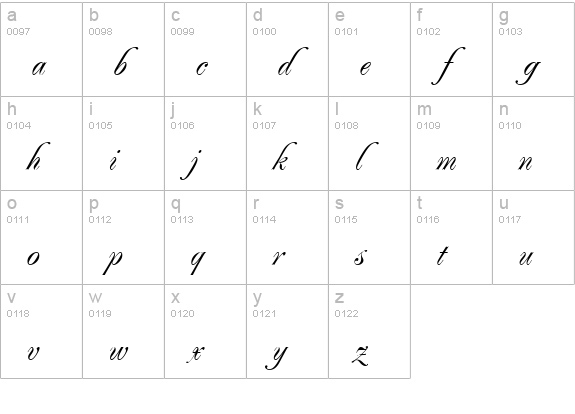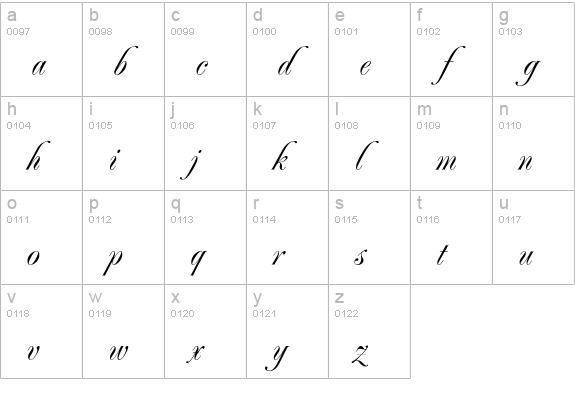
Poppl-Residenz Light Font Details
Poppl-Residenz Light is a refined, elegant variant in the Poppl typeface family \xE2\x80\x94 well suited to elegant body text, refined sub-headings, and luxury branding.
Poppl-Residenz Light font is a stunning typeface that exudes elegance and sophistication. With its delicate, thin strokes and timeless design, this font is perfect for adding a touch of refinement to any project. Whether you're designing a wedding invitation, creating a logo for a luxury brand, or working on a magazine layout, Poppl-Residenz Light is sure to make a lasting impression. The best part? This exquisite font is available for free download at FontsMarket.com. Simply visit the website to access this beautiful typeface and elevate your designs with its graceful aesthetic. Don't miss out on the opportunity to enhance your work with the timeless charm of Poppl-Residenz Light font - download it today and let your creativity soar.